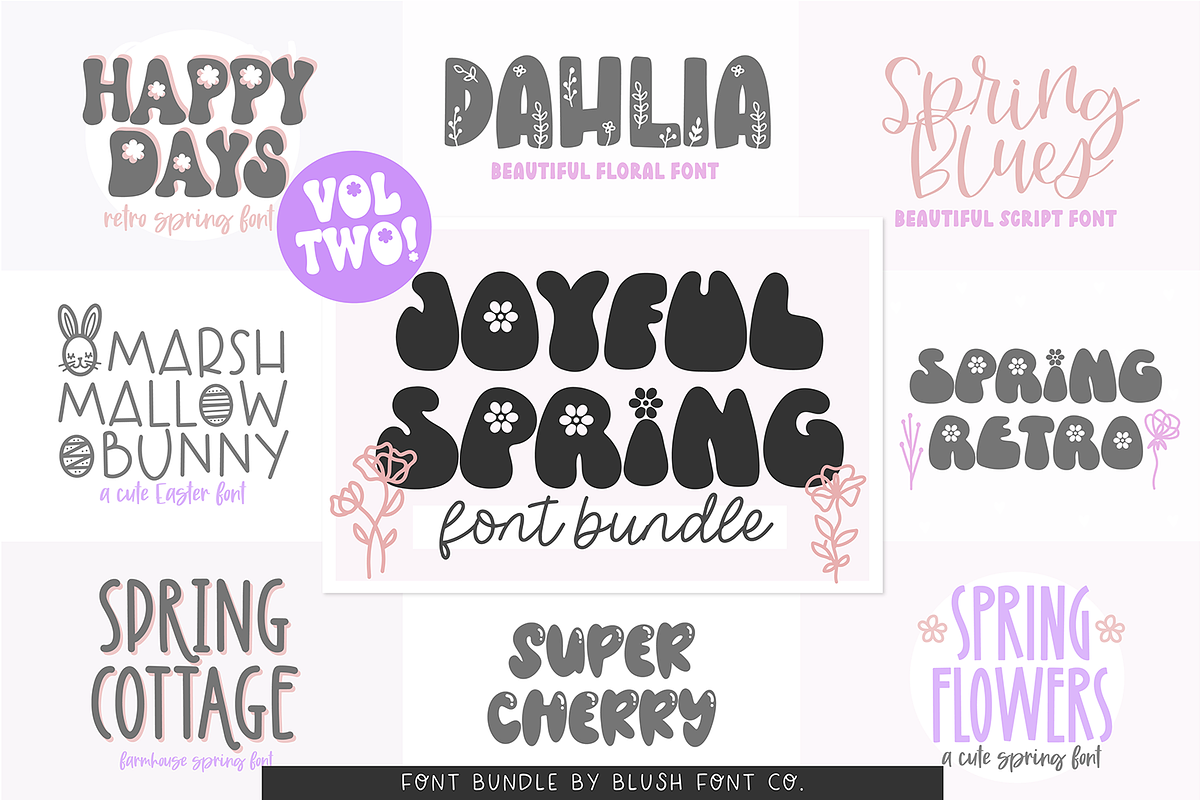
JOYFUL SPRING Font Bundle Vol. 2 Free Download is a fresh and cheerful collection of fonts inspired by the colors, warmth, and energy of spring. Featuring a delightful mix of handwritten scripts, playful display fonts, and elegant serif styles, this bundle is perfect for Easter projects, wedding invitations, seasonal branding, greeting cards, and uplifting social media content.
Each font in the bundle captures the spirit of renewal and creativity, offering a variety of styles that work beautifully on both print and digital designs. Whether you're going for soft and floral or bold and joyful, this bundle gives you the flexibility to mix, match, and blossom your ideas. Feel free to download it for personal testing—just remember to purchase a license for any commercial use.
Celebrate the season in style with JOYFUL SPRING Font Bundle Vol. 2 Free Download and bring a fresh burst of creativity to your designs. It’s a must-have collection for any designer looking to add brightness, charm, and springtime vibes to their font library.